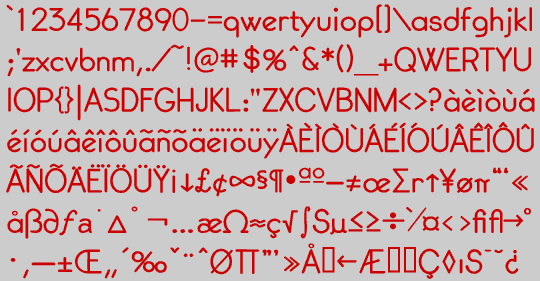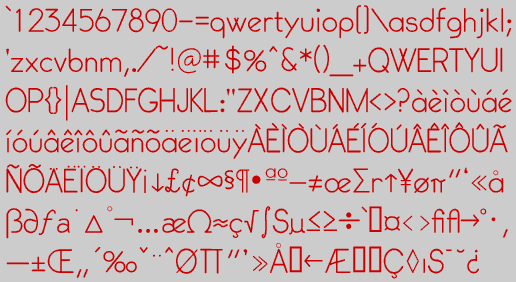
Cennerick (Plain, Bold, XBold)
Cennerick is a sans-serif face in which the ends of stems are rounded instead of squared off. It was derived from an one of my earliest typeface designs. The bolder versions can be used for display at larger sizes, and the plain version is quite readable at small point sizes.